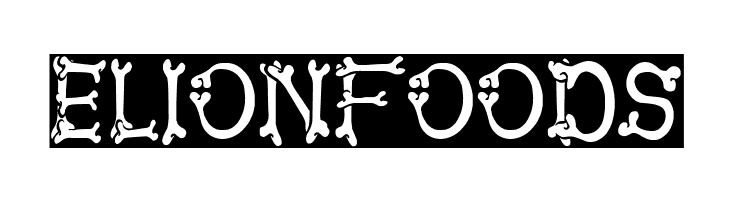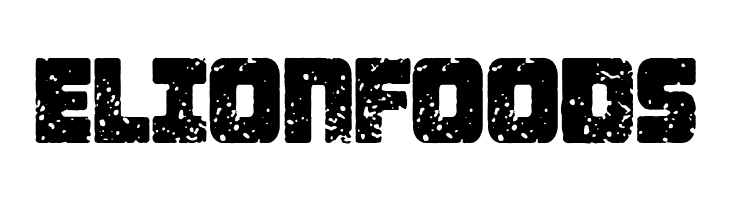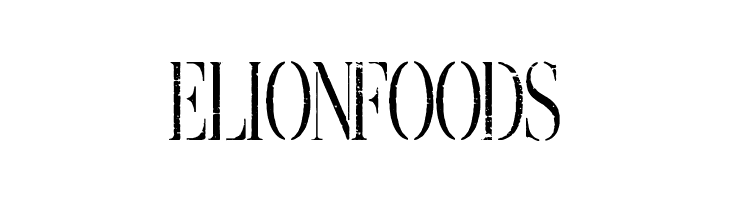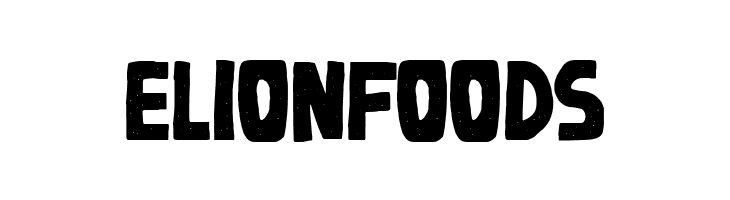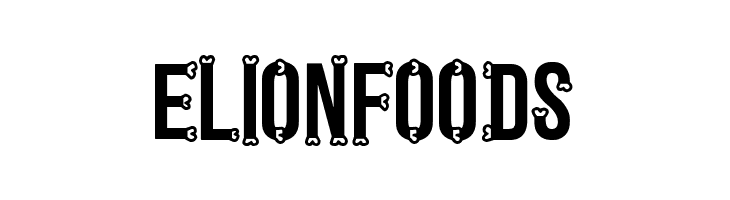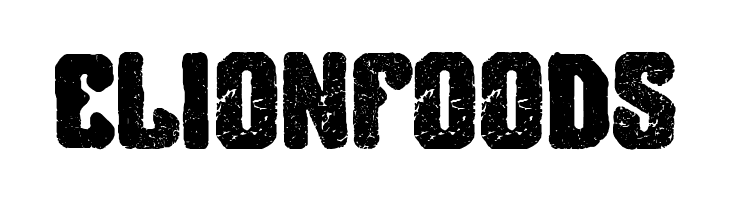
• Black Trident
A display font composed entirely of diverse trident symbols.
• Black Week Boys
A bold, distressed font with a vintage, hand-crafted look.
• Black_Christmas
A bold, dripping font with star accents, perfect for gothic or festive themes.
• Blackshirts
A bold, distressed stencil-style font with a rugged, industrial look.
• Blood & Horror
A bold, dripping font perfect for horror-themed designs.
• Blood 4 the People
Bold, dripping display font with a horror theme.
• Blood Spatter
A bold, dripping horror display font with a blood-splatter effect.
• Bloody Gothic Empire
A bold, dripping horror-themed display font.
• Bloody Lake University
A bold, dripping font with a horror-themed aesthetic.
• Bloody Office
A bold, dripping font with a spooky, horror-themed design.
• Bloody Winter
A bold, dripping font with a horror or winter theme.
• BOCADILLO DE MORTADELA
A bold, playful font with irregular, chunky characters and a hand-cut appearance.
• BOLÍGRAFO
A bold, hand-drawn font with a textured, sketch-like appearance.
• Bomb!
A pictogram font featuring bomb and explosive icons.
• Bon Appetit
A modern, dotted font with a playful and textured appearance.
• Bones in Black
Bone-inspired decorative display font with a skeletal, hand-drawn look.
• Bones Regular
A bold, bone-themed decorative font perfect for spooky designs.
• Bonesitos
A bone-themed decorative font perfect for spooky designs.